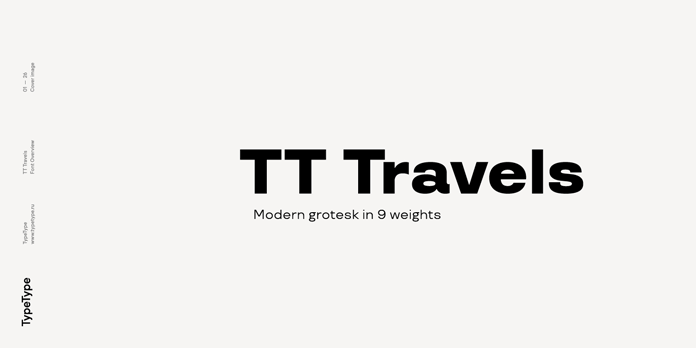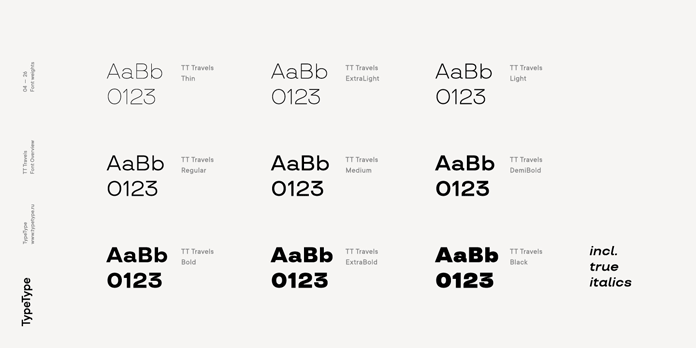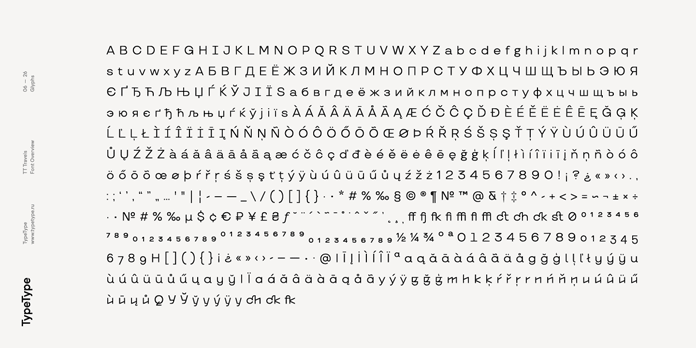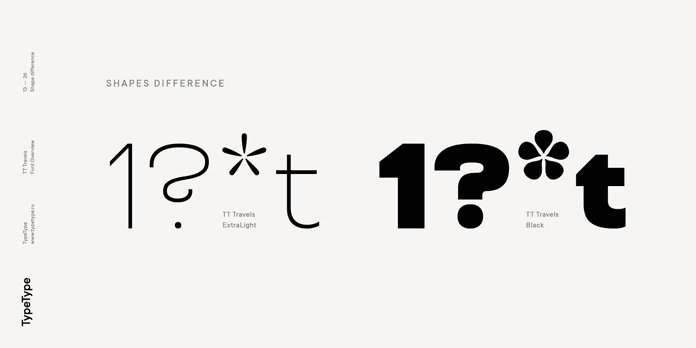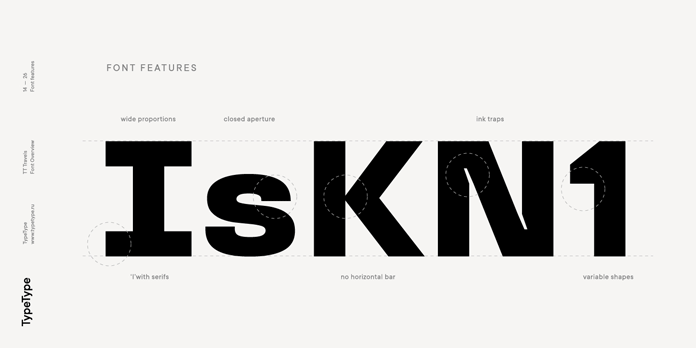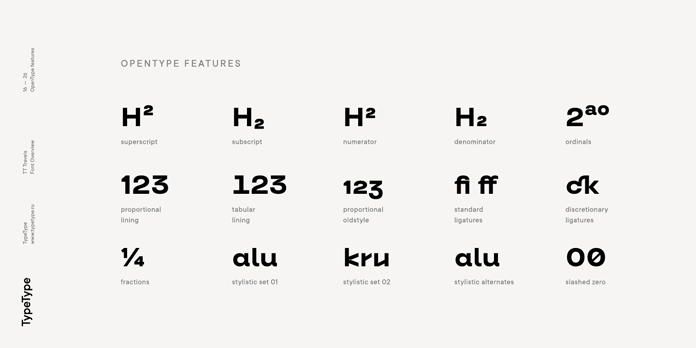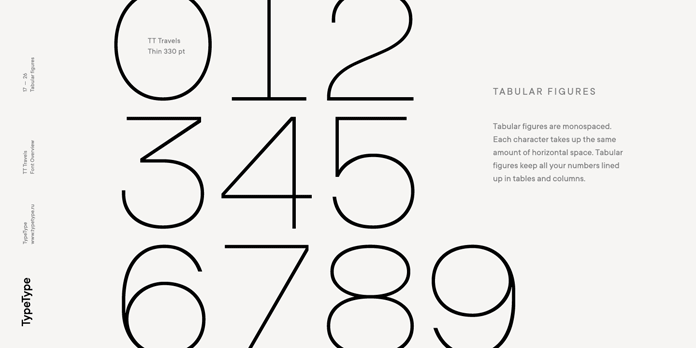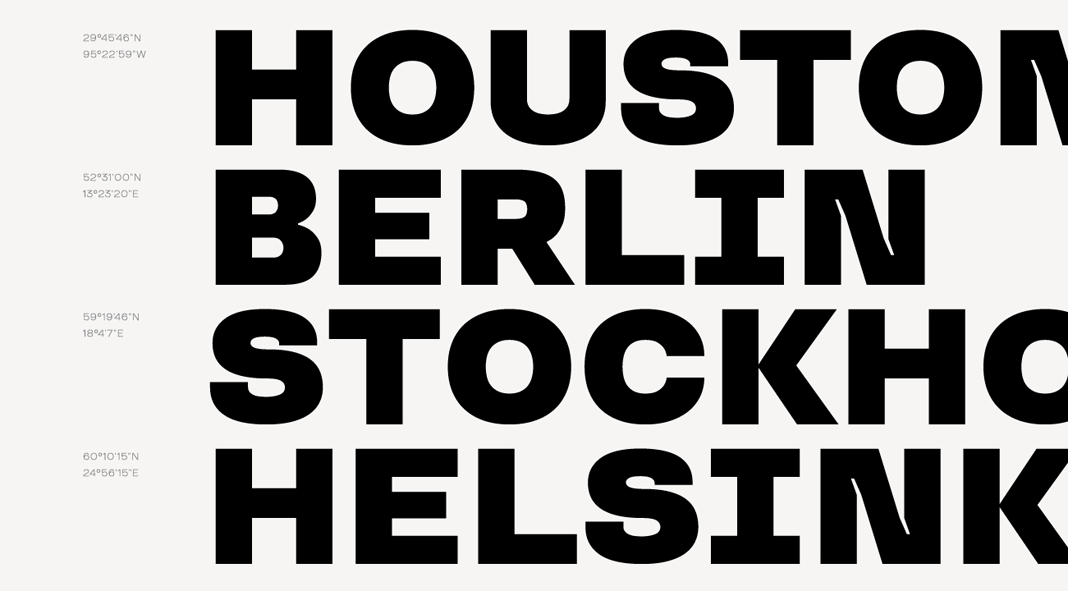
TT Travels, a modern Grotesk font family in 9 weights plus True Italics.
Designed in 2017 by Vika Usmanova and the TypeType team, TT Travels is a Grotesk font family with geometric shapes and wide proportions. The family is equipped with 9 weights plus true Italics. It incorporates two stylistic sets and numerous OpenType features such as superscript, subscript, numerator, denominator, ordinals, proportional lining, tabular lining, proportional oldstyle, standard ligatures, discretionary ligatures, fractions, stylistic sets, slashed zero, and stylistic alternates. Equipped with an extensive set of Latin and Cyrillic letters, the family supports multiple languages. TT Travels is well suited for a wide range of typographic needs including headlines and text arrays. The various weights range from thin to black. For additional information, just have a look at the images below or click on the following link.